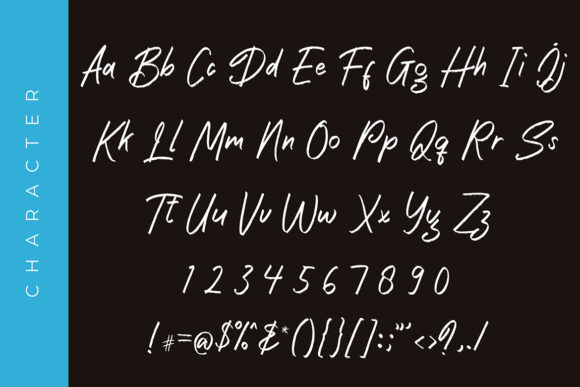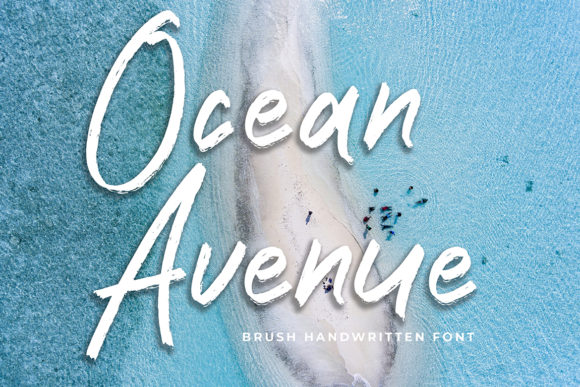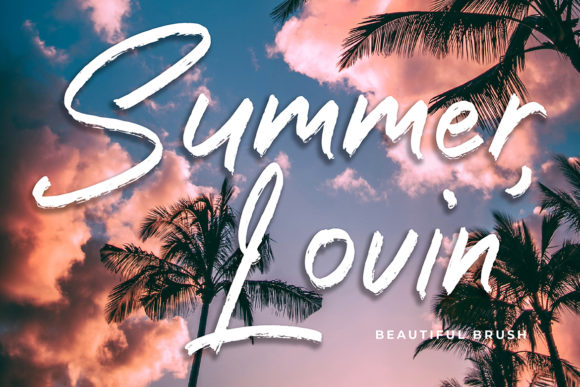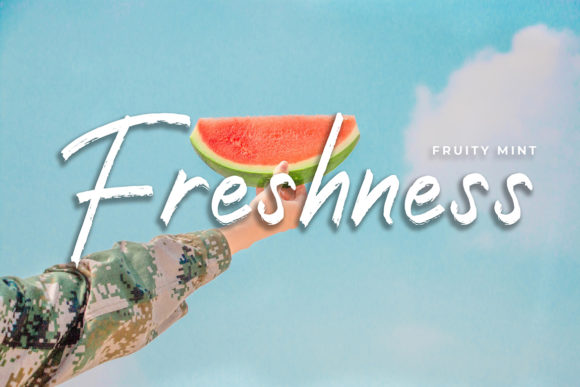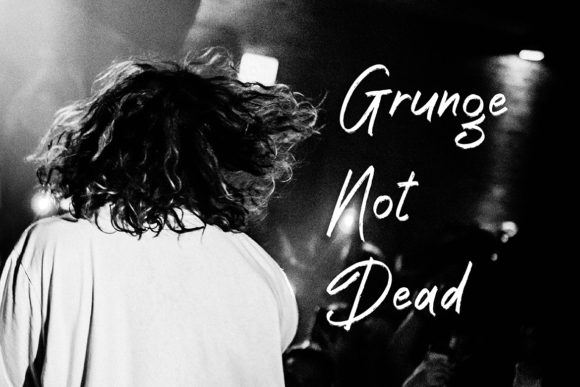
Introduction to Samudra Font
Imagine you’re working on a creative project, pouring your heart and soul into a design, but something’s missing – a unique touch that elevates it to the next level. That’s where the perfect font comes in, and we’re excited to introduce you to the Samudra Font, a stunning handwritten script that will make your text shine.
As a valuable design resource, the Samudra Font is perfect for designers looking to add a touch of elegance and sophistication to their work. Its brush style gives it a high-quality, luxurious feel that’s sure to impress. Whether you’re working on a logo, brochure, or website, this font is a must-have for any creative project. Plus, with its transparent background, you can easily combine it with other design elements to create a cohesive look.
Key Features of Samudra Font
- Comes with a transparent background, making it versatile for use in various design contexts.
- Features a unique and stylish design that adds a touch of elegance to any project.
- Includes a comprehensive character set, making it suitable for a wide range of languages and applications.
- Designed with high resolution, ensuring it remains crisp and clear even in large sizes.
- Perfect for use in graphic design, digital art, and other creative pursuits where a high-quality font is essential.
Honest Review: Samudra Font
As a designer, I’m always on the lookout for high-quality design resources to elevate my creative projects. The Samudra Font is a great find, and I’m excited to share my thoughts on it.
- High-Quality Design – The Samudra Font has a beautiful, hand-drawn feel that’s perfect for adding a touch of elegance to your designs.
- Transparent Background – The font’s transparent background makes it easy to layer with other design elements.
- Limited Character Set – The font only includes a limited set of characters, which might not be suitable for longer blocks of text.
- Not Ideal for Small Text – The font’s intricate details might make it difficult to read in smaller sizes.
Overall, I’m impressed with the Samudra Font’s unique design and versatility. While it may have some limitations, it’s an excellent addition to any designer’s toolkit. Whether you’re working on a branding project or a creative campaign, the Samudra Font is definitely worth checking out.
Common Use Cases for Samudra Font
Samudra Font is commonly used in designs that require a high-end, elegant look. Some common use cases include:
- Infographics and data visualizations